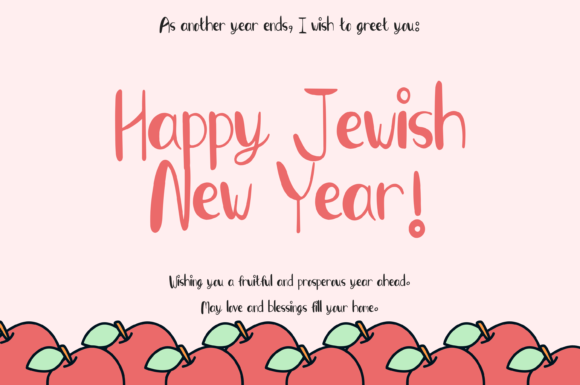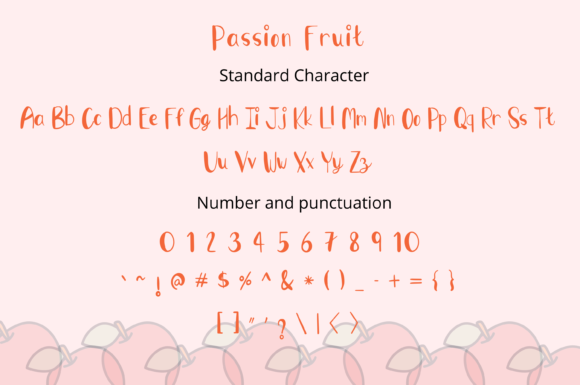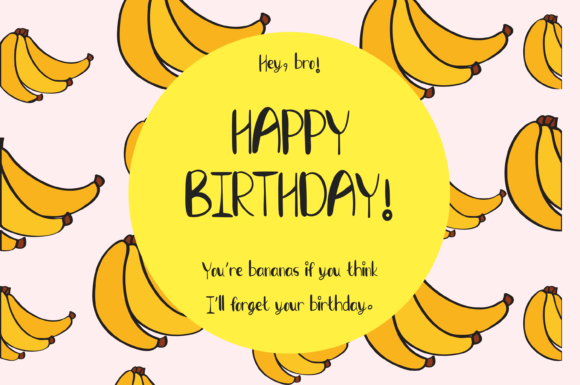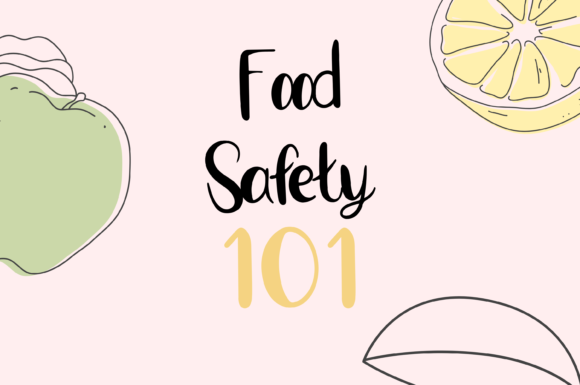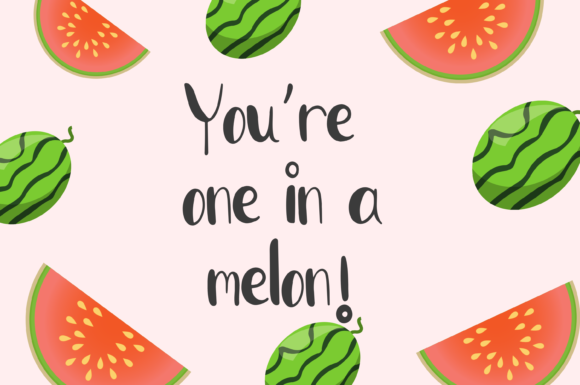
Passion Fruit Style Font
About Passion Fruit Style Font
“Passion Fruit Style” emerges as a font that embodies whimsy and style, a handwritten script that brings a touch of playful elegance to your designs. With its unique charm, this font becomes a versatile tool that effortlessly complements a wide range of projects. Imagine it as a stroke of creative flair that adds a distinctive and eye-catching element to every design it graces.
Visualize “Passion Fruit Style” as a dance of ink and imagination, each letter exuding a sense of creativity and character. Its versatility enriches your projects, transforming them into visual expressions that captivate attention and leave a lasting impression. As you integrate this font into your designs, you embark on a journey where your concepts evolve into captivating visual narratives.
This font becomes a catalyst for creativity, infusing your projects with a touch of whimsical allure. From adding a playful twist to branding elements to enhancing the appeal of logos and beyond, “Passion Fruit Style” stands ready to be the stylish ingredient that sets your creative ideas apart.
In a design realm where originality and impact are paramount, “Passion Fruit Style” becomes your partner for crafting designs that resonate with charm and sophistication. Allow its whimsical and stylish strokes to be the artistic threads that weave through your creations, infusing them with a sense of vibrancy and elegance. Embrace the captivating essence of “Passion Fruit Style” and watch as it transforms your projects into showcases of creative brilliance, inviting all who engage with them to experience the unique charm it imparts.